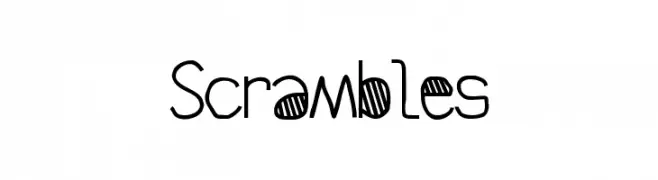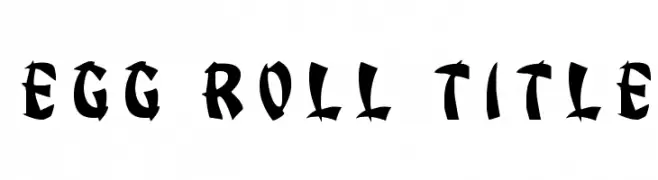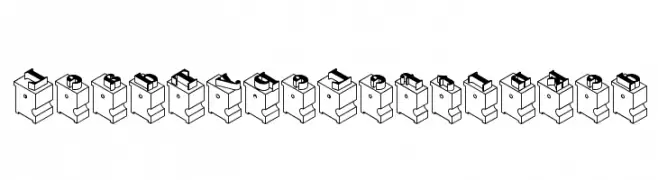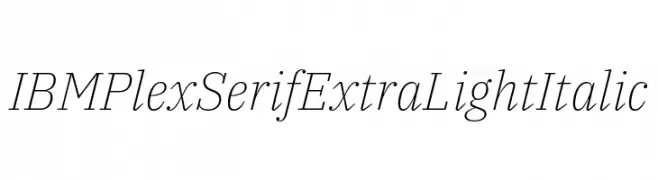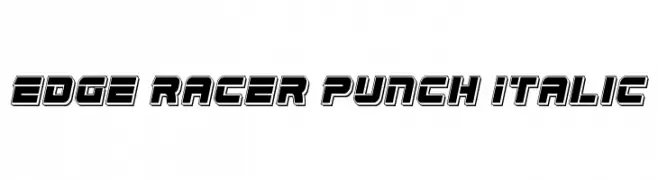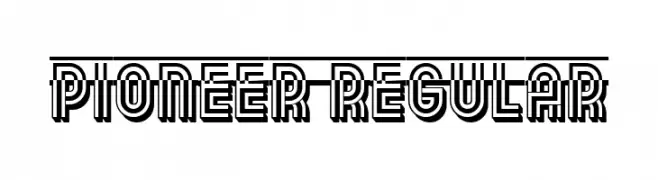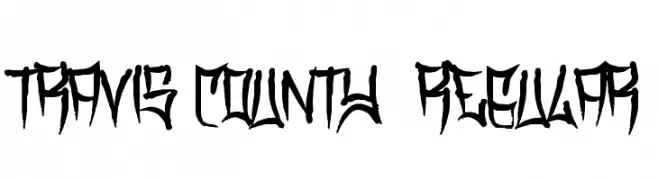
A bold, artistic font with sharp, angular edges and a playful, tribal aesthetic.
A bold, three-dimensional font with a vintage lead type aesthetic.
A refined serif font with an extra light weight and elegant italic style.
A bold, futuristic italic font with a sporty, dynamic style.
A bold, geometric font with a three-dimensional, retro-futuristic style.
A bold, graffiti-inspired font with sharp, angular strokes.
A whimsical, handwritten font with playful decorative elements.